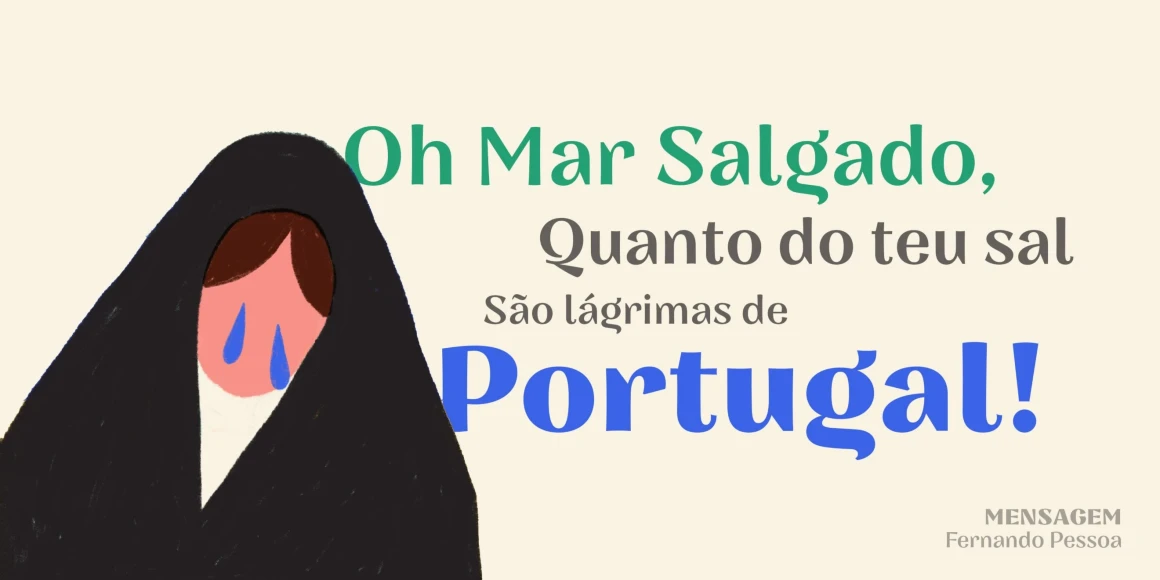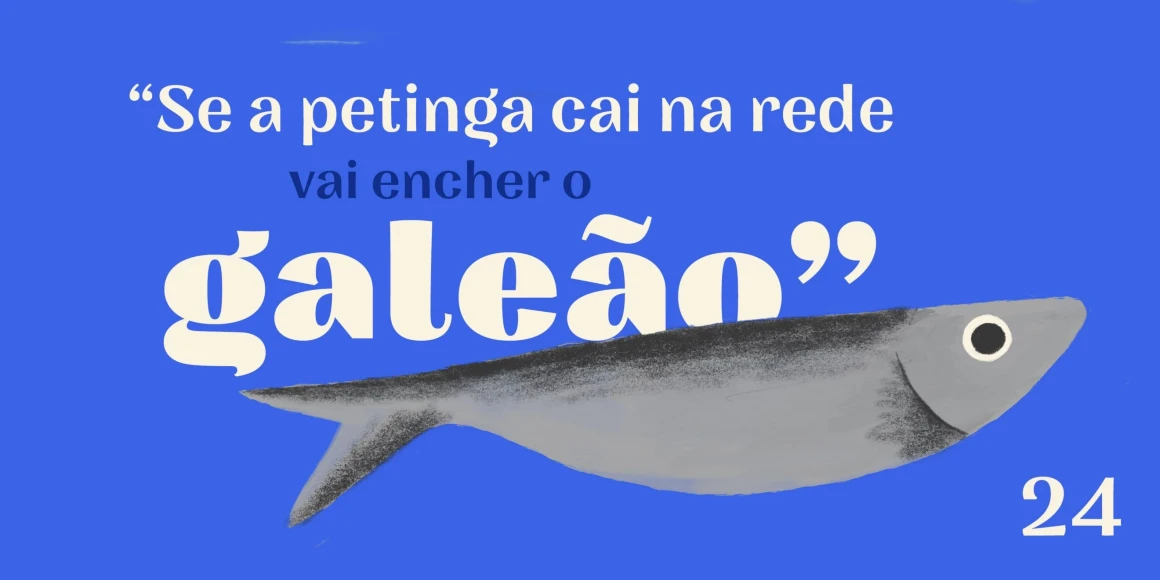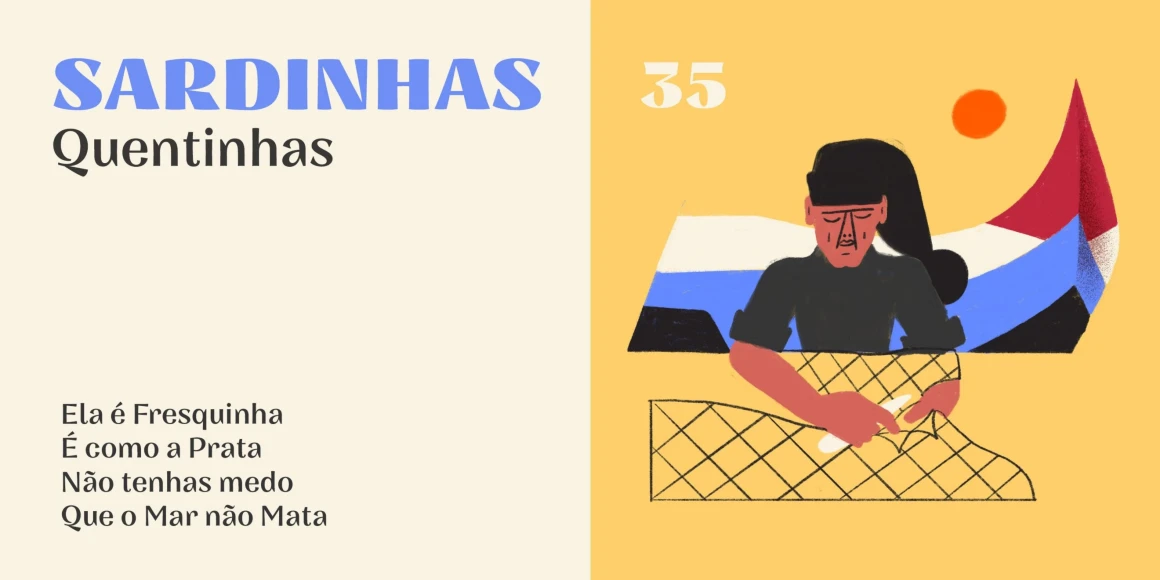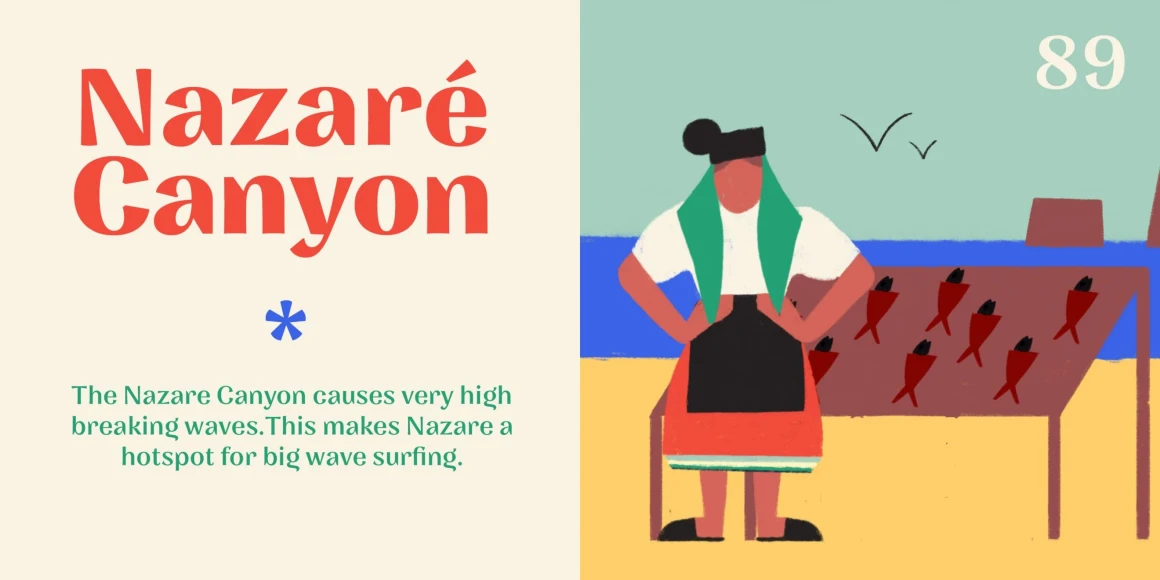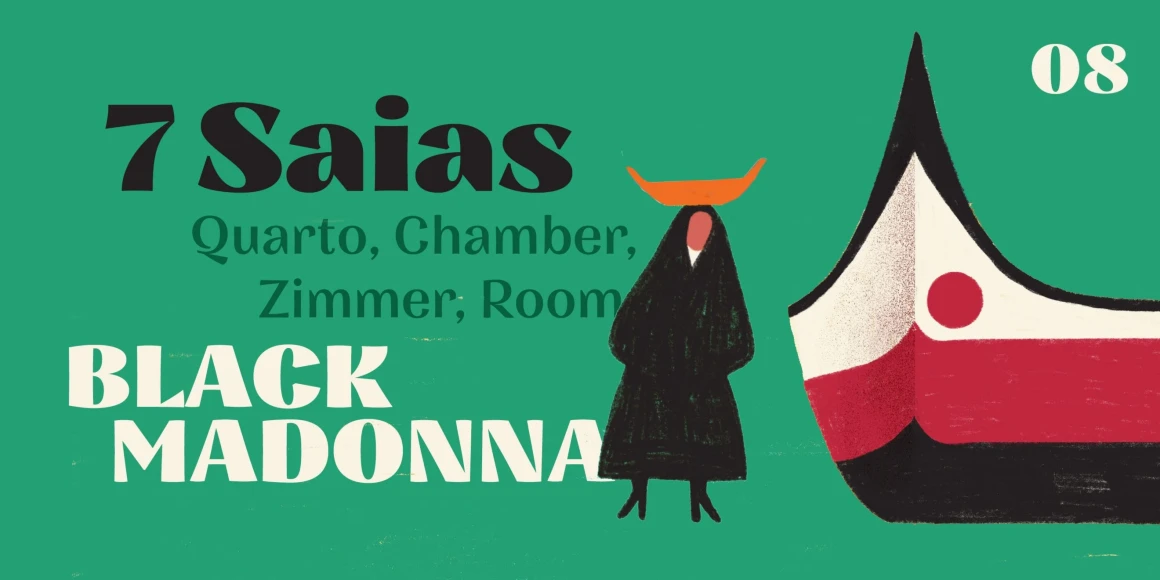
Nazare
By Natanael Gama & Joana Correia
It all started with a Portuguese soap packaging from the first half of the 20th Century. The 5 uppercase letters that spell NAZARÉ were sufficient to drive the creation of this design. Nazaré fits in a semi-serif category and has a large contrast. It works outstandingly in display use specially in the bolder weights that have even more contrast. The regular weights have a more moderate contrast and an overall less extravagant design, fitting best in the typographical conventions. This provides a better render in text use. You can use this font in large headlines, logos, posters, book covers, and general display use as well as short strings of text. Nazaré is the name of a small Portuguese fishing village known for its giant waves and peculiar people.